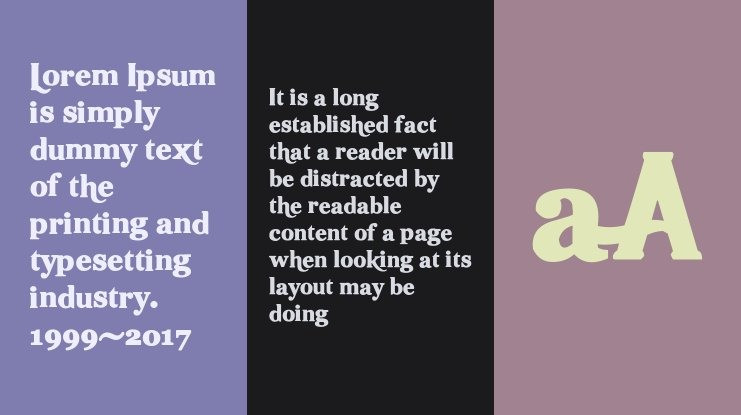
Hot Pizza Serif Font, used on the Pizza Hut logo. Pizza Hut is an international franchised American restaurant chain that specializes in providing pizza dishes with different styles, along with delicious pizzas. Side dishes include pasta, beef thighs, breadsticks, and garlic bread. Pizza Hut is a subsidiary of Yum! Brands, (the world’s largest restaurant company).
Hot Pizza Font